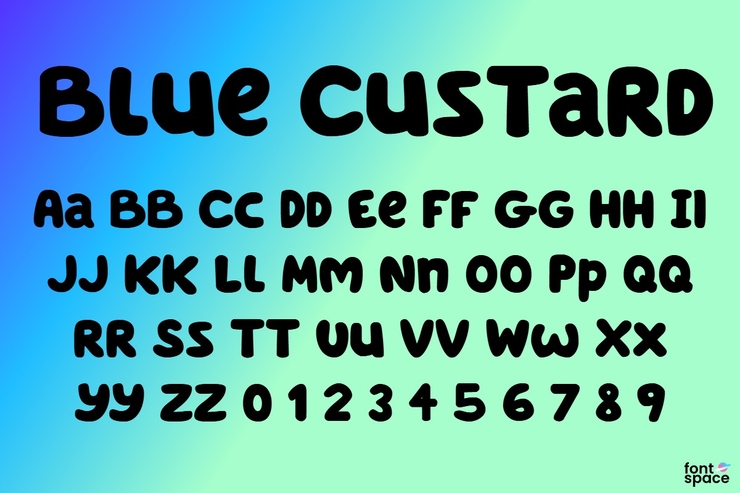
Blue Custard Stylish Trendy Tech Elegant English Font
Blue Custard is a high-quality English font that combines stylish trend, futuristic tech vibe and elegant letterforms. Its smooth lines, delicate details and balanced proportions make it stand out, blending modern fashion with subtle technological charm. Each character features elegant curves and clear outlines, with a unique aesthetic that balances trend and sophistication. It is widely applicable to various design scenarios, including brand logos, fashion posters, tech banners, e-commerce headlines, product packaging and decorative typography. The font is easy to edit and scale, ensuring clear display in any size, making it suitable for both personal and commercial design projects.Free for Commercial Use / No Copyright